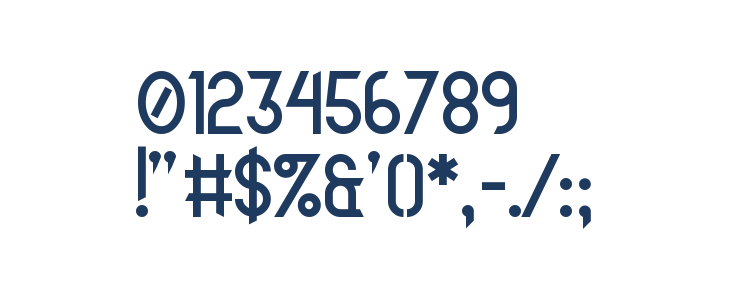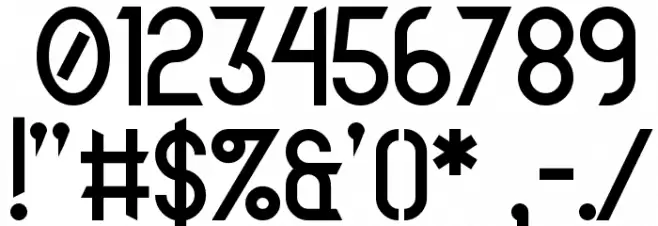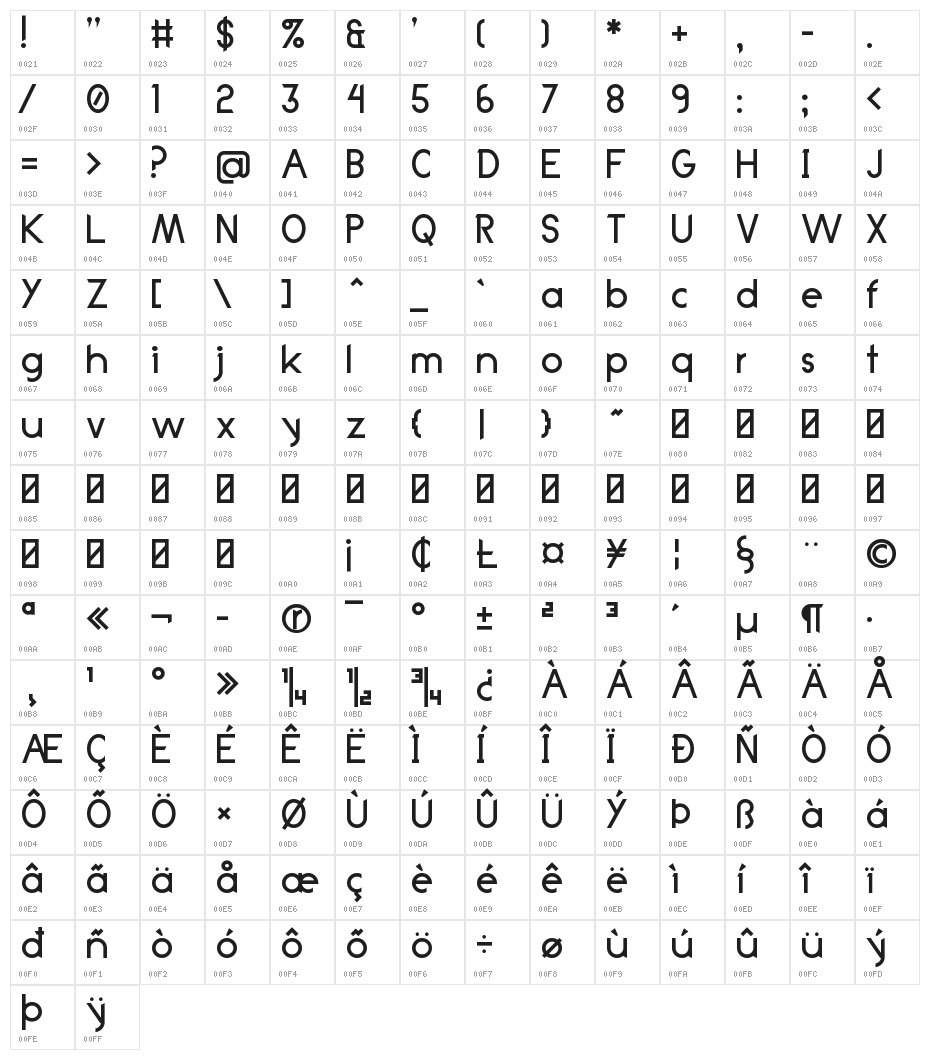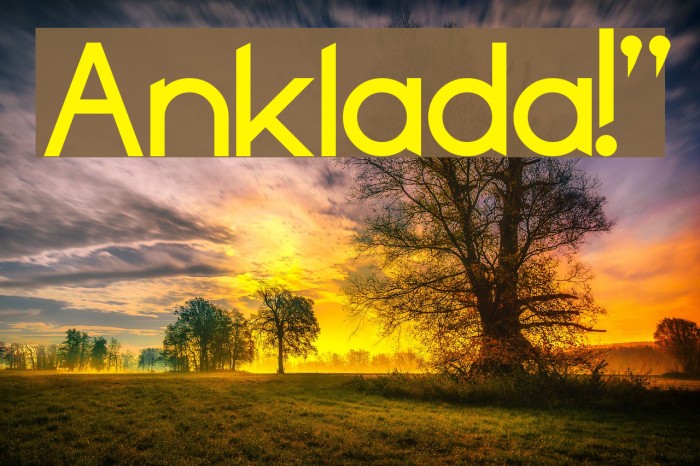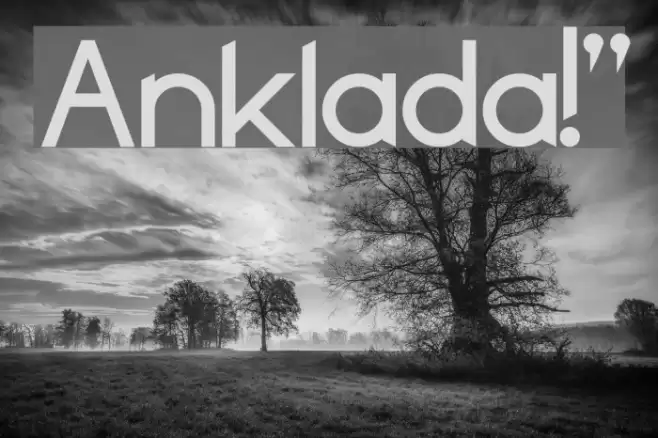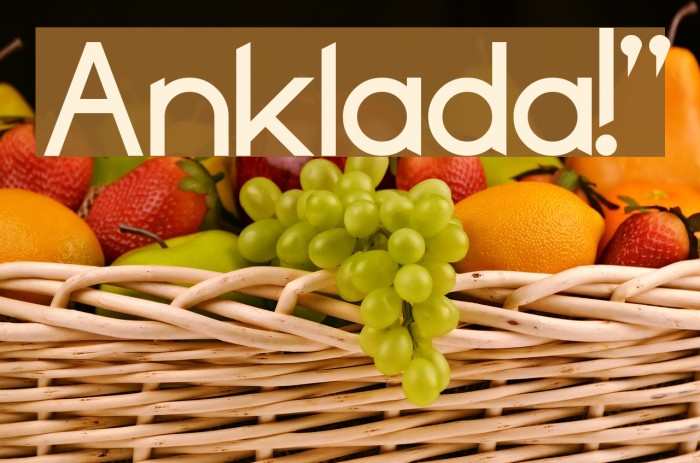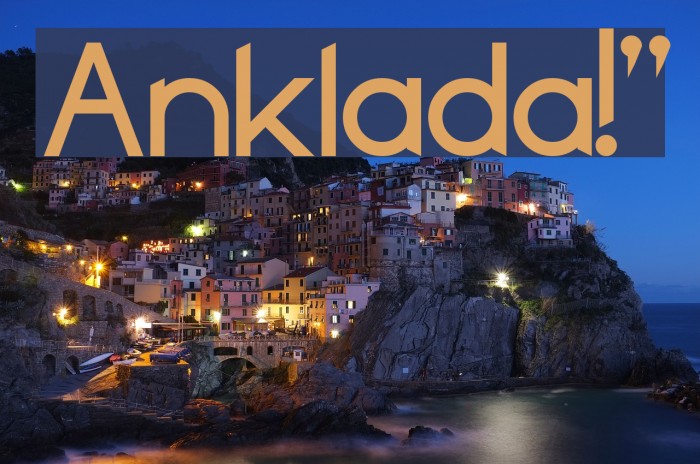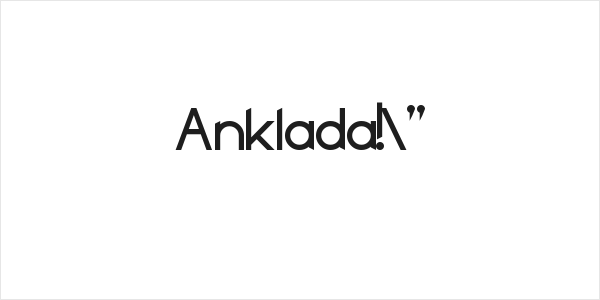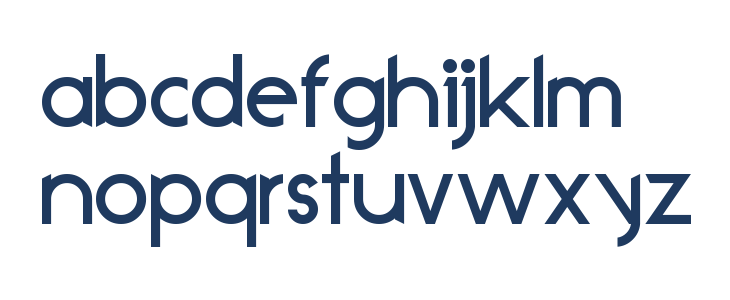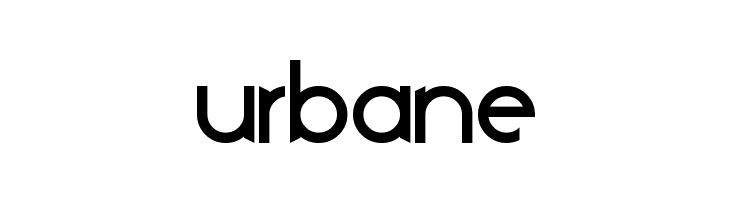
Anklada!" Font
Anklada!" Description
This font features a clean and modern sans-serif style with geometric influences. The characters are well-proportioned, offering a balanced and harmonious appearance. The uppercase letters are bold and assertive, while the lowercase letters maintain a friendly and approachable feel. The numerals are distinct and easy to read, making them suitable for various applications. Special characters are designed with the same geometric precision, ensuring consistency throughout the typeface. This font is versatile, suitable for both digital and print media, and can be used effectively in branding, advertising, and editorial design.